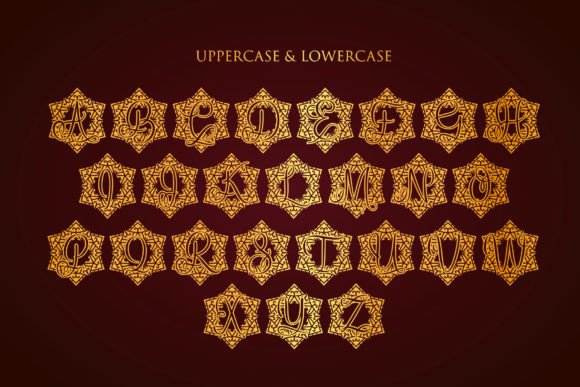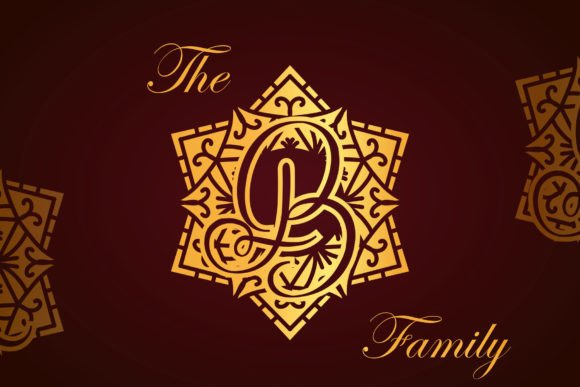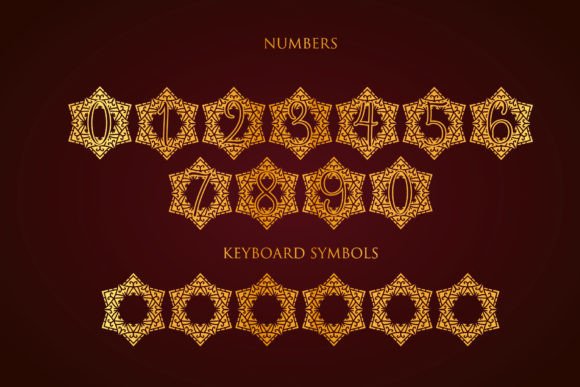
Introduction to Lotus Mandala Monogram Font
As a designer, have you ever found yourself lost in a sea of inspiration, searching for that perfect element to elevate your next creative project? Perhaps you’ve stumbled upon a stunning piece of art, and the intricate patterns and symbols have sparked a vision in your mind. This is exactly what happened when I discovered the enchanting Lotus Mandala Monogram Font. Its elegance and uniqueness captivated me, and I knew I had to share it with fellow designers and craft enthusiasts.
The Lotus Mandala Monogram Font is a high-quality, free download that offers a wealth of creative possibilities. With its transparent background, you can seamlessly integrate it into your designs, from logos to digital art. This design resource is not only visually stunning but also versatile, making it an invaluable addition to any designer’s toolkit.
Key Features of Lotus Mandala Monogram Font
- High-quality design resource for creative projects, available for free download
- Unique, intricate monogram design featuring a lotus mandala pattern, ideal for adding a touch of elegance to your work
- Transparent background, allowing for seamless integration with any design
- Vector format, allowing for scalable designs without loss of quality
- Designed to be used as a standalone monogram or in combination with other design elements
- Perfect for use in various design projects, including invitations, greeting cards, and other paper crafts
Honest Review: Lotus Mandala Monogram Font
I recently had the chance to dive into the Lotus Mandala Monogram Font and I must say, it’s a fantastic addition to any design resource collection. ✨ The font’s intricate, hand-drawn design is perfect for any creative project that requires a touch of elegance.
One of the standout features of this font is its ability to be used on a transparent background, which makes it incredibly versatile. This means you can use it to create stunning graphics, logos, or even digital invitations.
Here are some of the key features I love about the Lotus Mandala Monogram Font:
- Transparent background allows for seamless integration into any design
However, there are a few limitations to keep in mind: ⚠️ The font is only available in a single weight, which may limit its use in certain contexts. Additionally, some users may find the intricate design to be overwhelming in certain applications.
Overall, I’m thoroughly impressed with the Lotus Mandala Monogram Font. It’s a fantastic addition to any design resource collection and is sure to elevate any creative project. ✨ With its high-quality design and transparent background, it’s a must-have for any designer looking to add a touch of elegance to their work.
The Lotus Mandala Monogram Font is a high-quality design resource perfect for any creative project. This free download offers a unique and elegant touch to your designs. With a transparent background, you can easily integrate it into your projects without any background distractions.
To get the most out of the Lotus Mandala Monogram Font, experiment with different font sizes, colors, and combinations. You can also use it in conjunction with other design elements to create unique and eye-catching designs.
The Lotus Mandala Monogram Font is perfect for wedding invitations, branding, and other creative projects that require a touch of elegance and sophistication. Its unique design makes it an ideal choice for designers looking to add a personal touch to their projects.